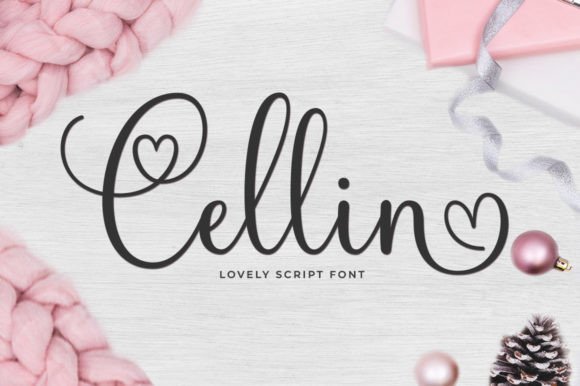
Unveil the Graceful Elegance of Cellin Font: The Epitome of Sophistication for Your Creative Endeavors
Experience the allure of Cellin Font, a handcrafted masterpiece that captures the essence of timeless elegance and modern flair. This exquisite script font, meticulously crafted by the talented Zane Studio, is a true game-changer in the world of typography, offering a touch of magic to your design projects.
Immerse yourself in the world of Cellin Font, where every letter flows seamlessly, creating a symphony of visual harmony. Its delicate curves and intricate flourishes exude a charm that is both captivating and timeless. Whether you're a seasoned designer or just starting your creative journey, Cellin Font is the perfect tool to elevate your designs to new heights.
With its inherent versatility, Cellin Font effortlessly adapts to a wide range of design styles, from classic and traditional to contemporary and trendy. It adds a touch of elegance to wedding invitations, making them truly unforgettable. Let your creativity shine through as you explore the endless possibilities of Cellin Font, crafting stunning logos, eye-catching social media graphics, and captivating marketing materials.
Step into the realm of unlimited creativity with Cellin Font, where the possibilities are as boundless as your imagination. This remarkable font is the key to unlocking a world of design brilliance, allowing you to create masterpieces that leave a lasting impression. So, why wait? Embrace the allure of Cellin Font today and embark on a journey of creative exploration that will redefine your design horizons.
Unleash the Power of Cellin Font: A Timeless Masterpiece for Discerning Designers
In a world saturated with ordinary fonts, Cellin Font stands tall as an extraordinary creation, a testament to the art of typography. Its carefully crafted characters, each a work of art in itself, come together to create a font that is both visually stunning and highly functional.
With Cellin Font, you're not just downloading a font - you're investing in a timeless tool that will empower your creativity for years to come. Its versatility knows no bounds, adapting effortlessly to a multitude of design genres. From the delicate intricacies of wedding invitations to the bold, contemporary lines of marketing materials, Cellin Font is your perfect creative partner.
Let your imagination run wild as you explore the endless possibilities of Cellin Font. Create breathtaking posters that capture the essence of your message, design logos that exude sophistication and elegance, or craft social media graphics that captivate your audience. The possibilities are infinite, just waiting for you to unlock them.